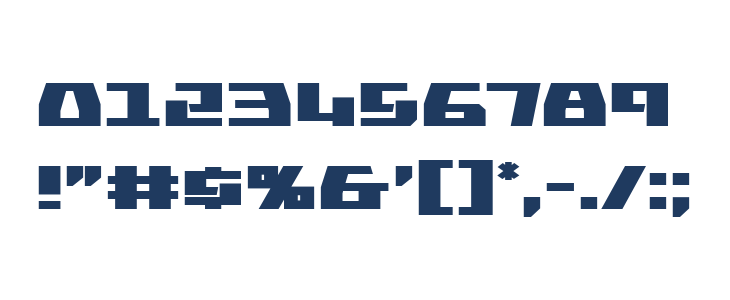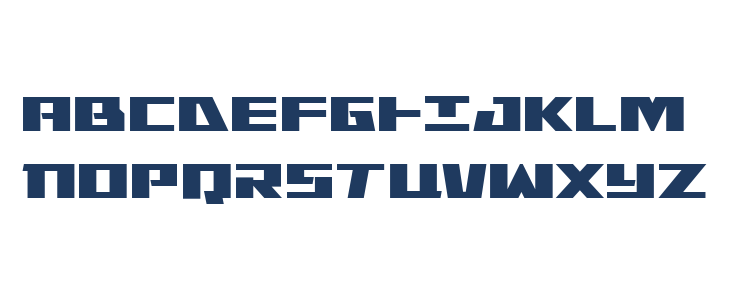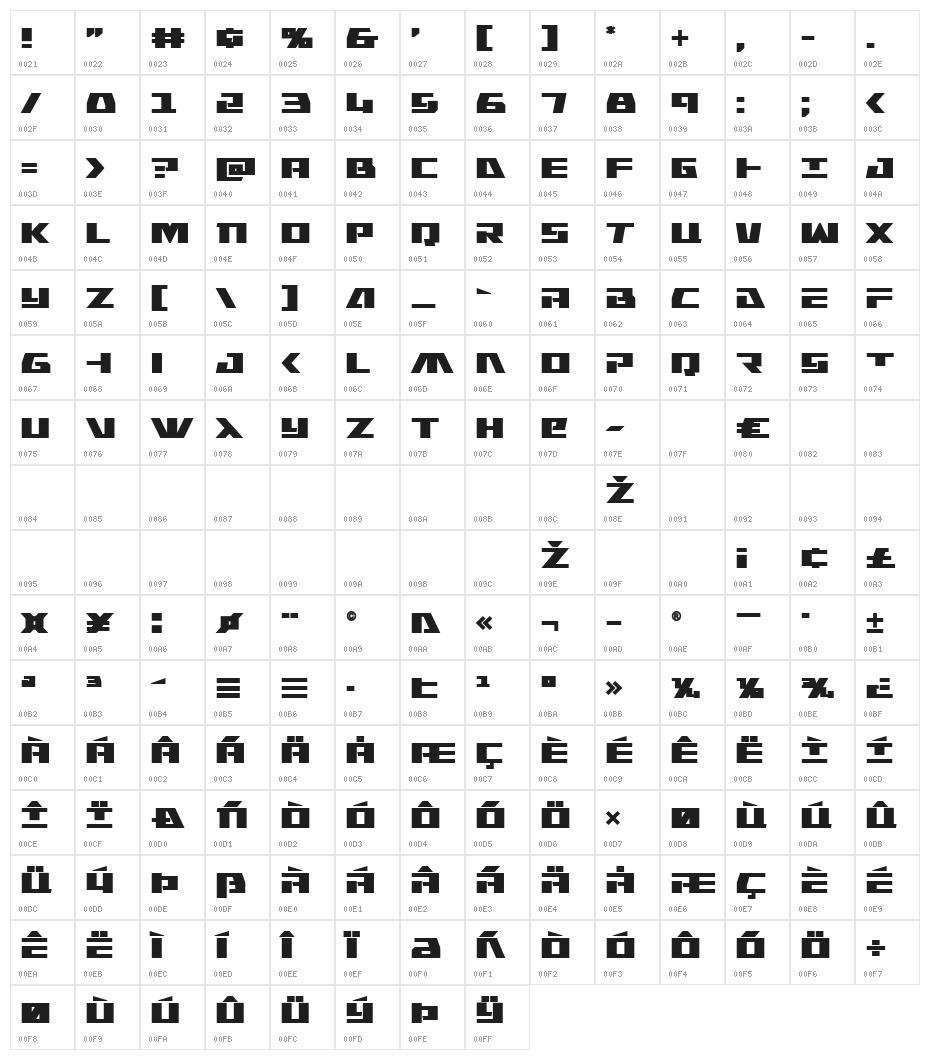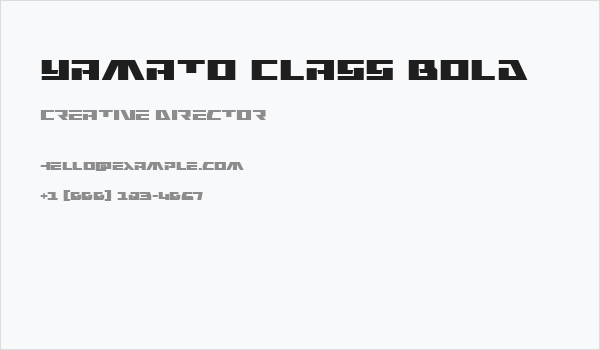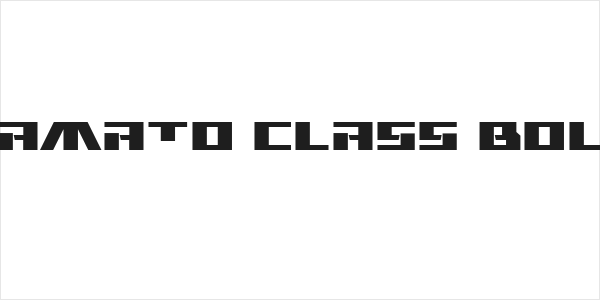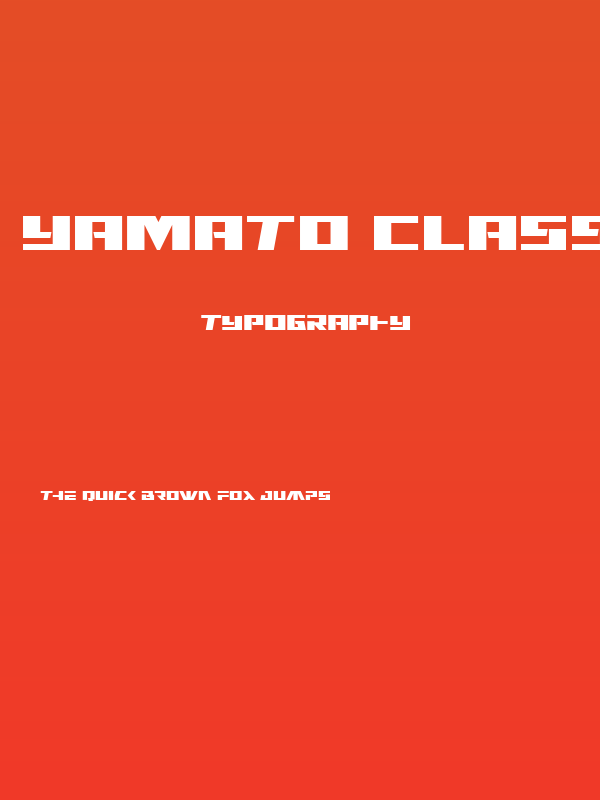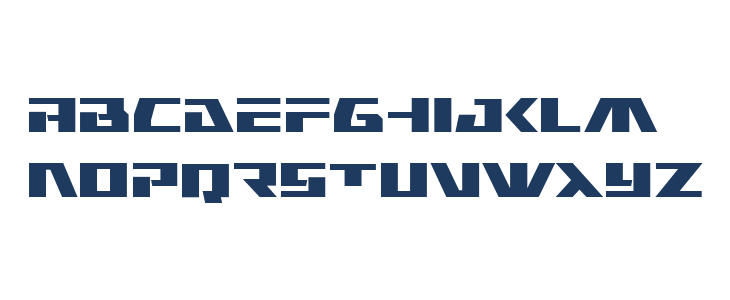
Yamato Class Bold Font
Yamato Class Bold Description
A geometric, angular display font with heavy, block-like letterforms and sharp, cut-out corners, creating a futuristic and industrial appearance. The characters are bold, with uniform stroke thickness and minimal curves, emphasizing a mechanical, stencil-like style.
| Overall Style | Futuristic, Industrial, Decorative |
| Use Case | Headlines, Logos, Posters, Signage |
| Proposed Projects | Posters, video game titles, sci-fi branding, event flyers, signage, logos. |